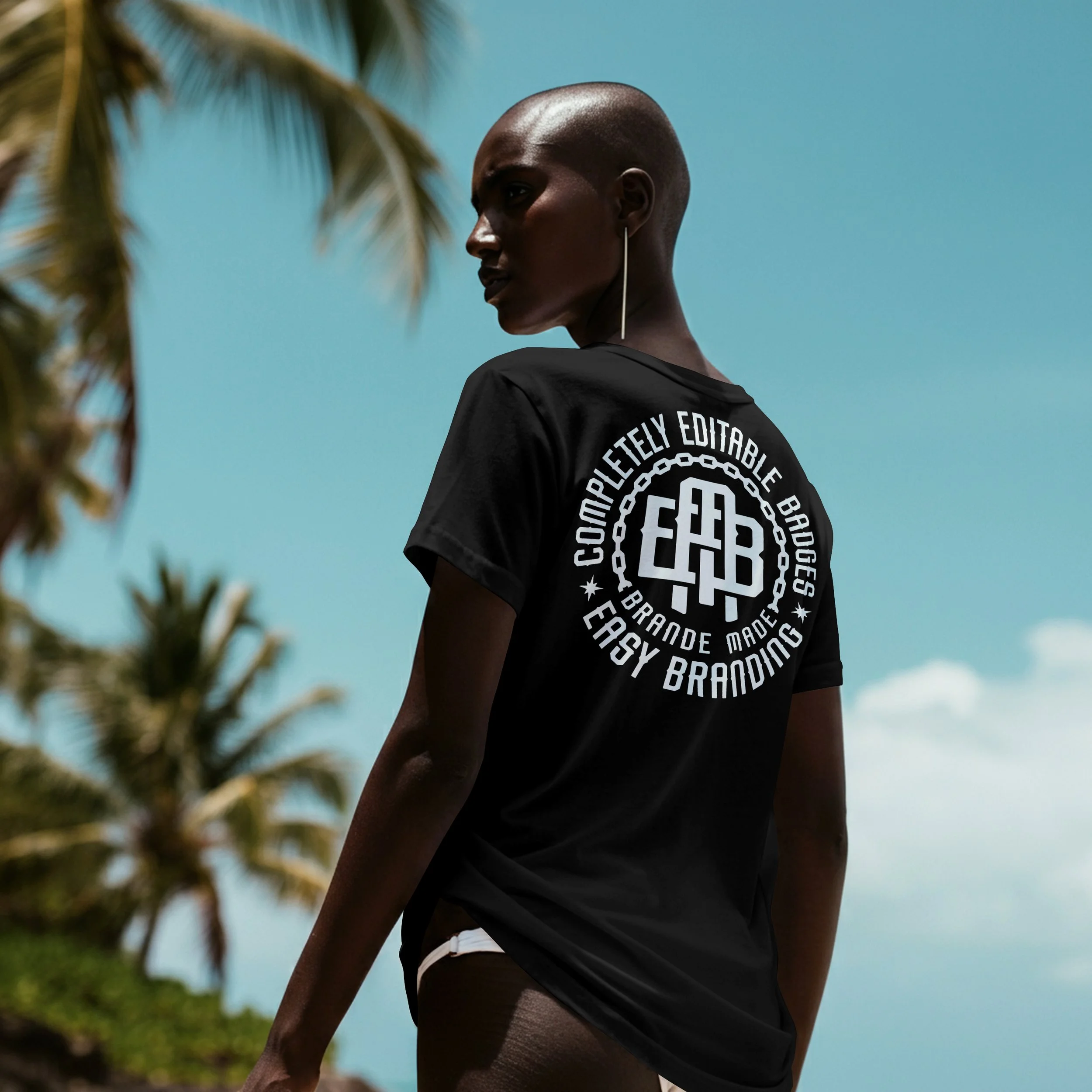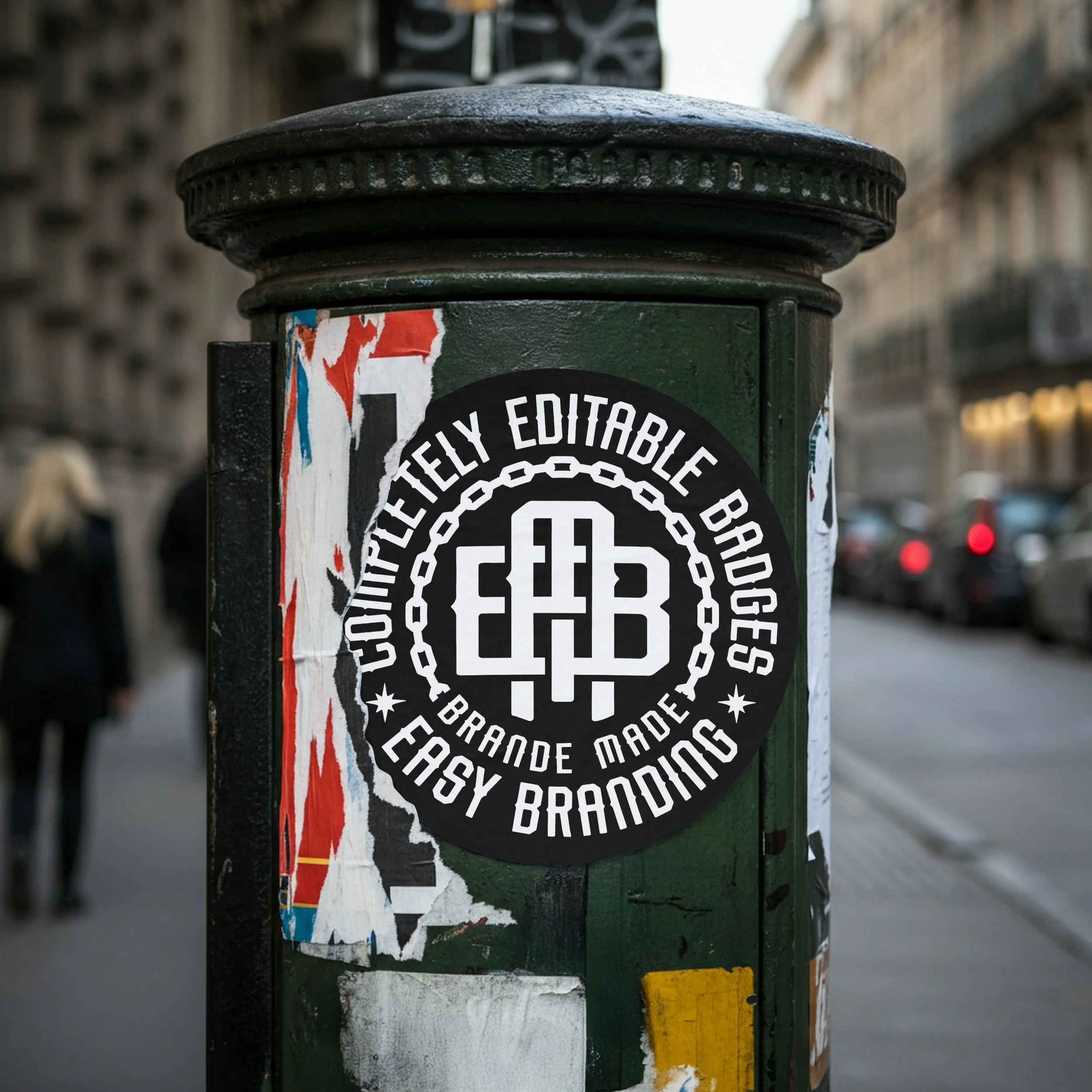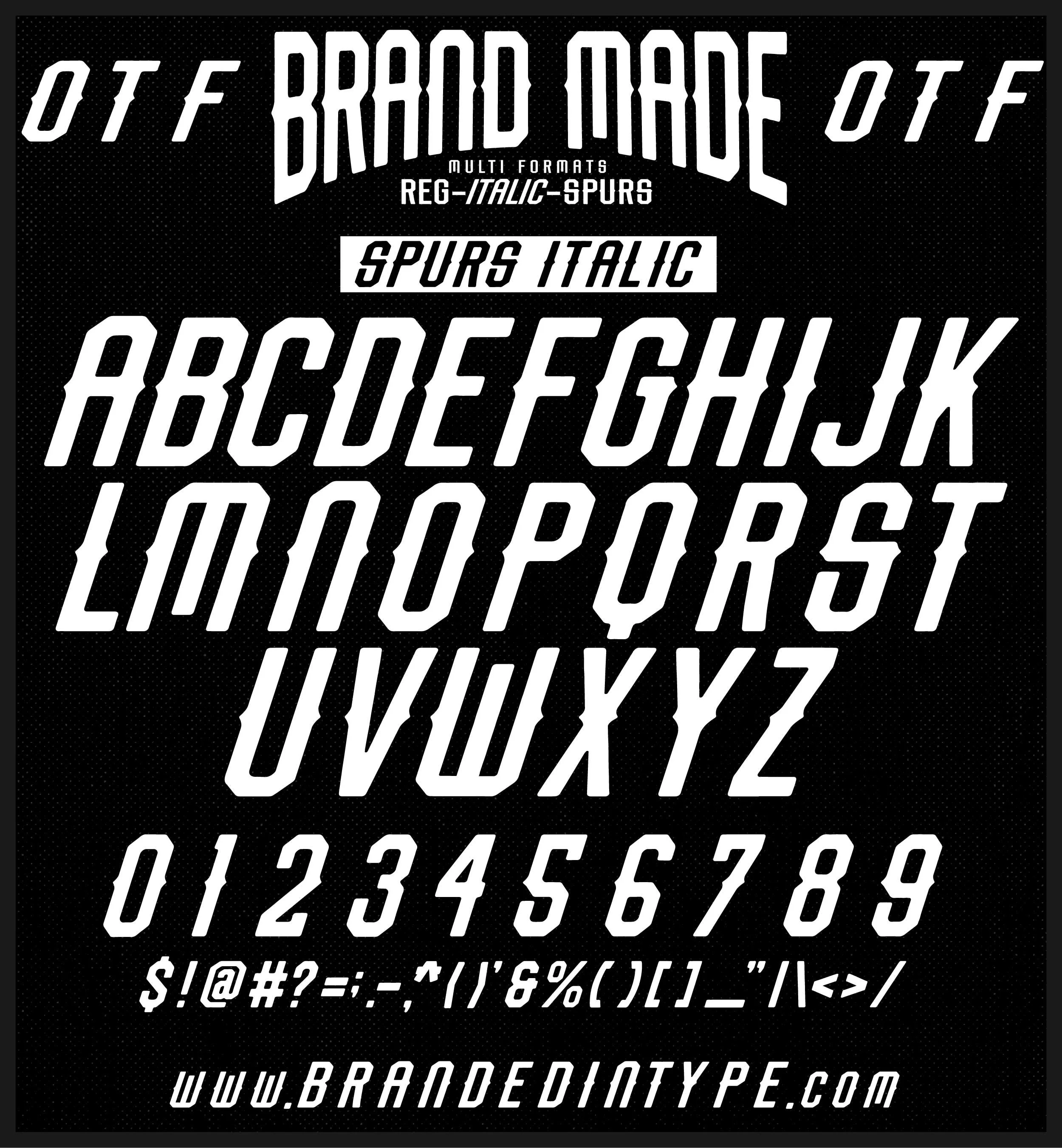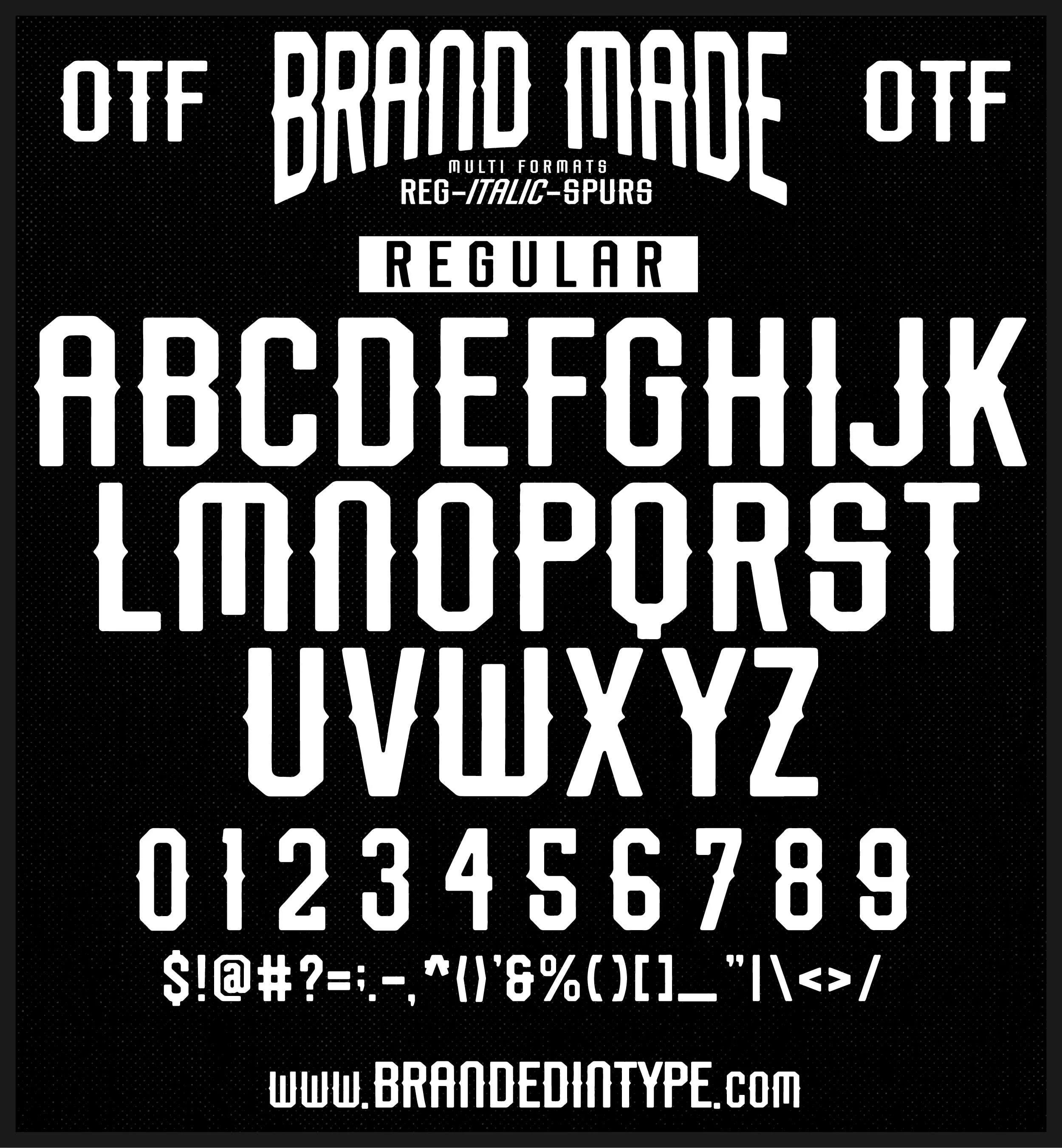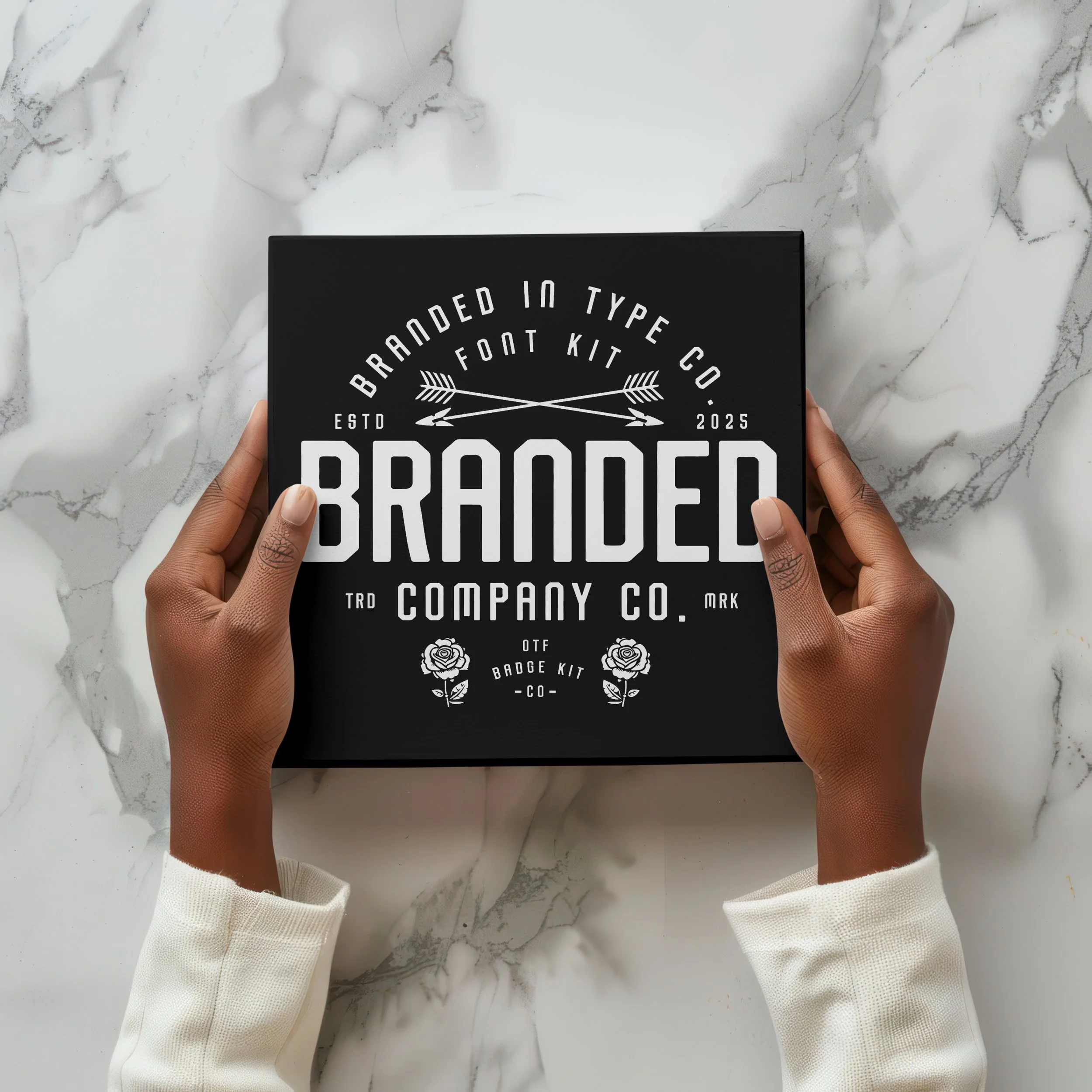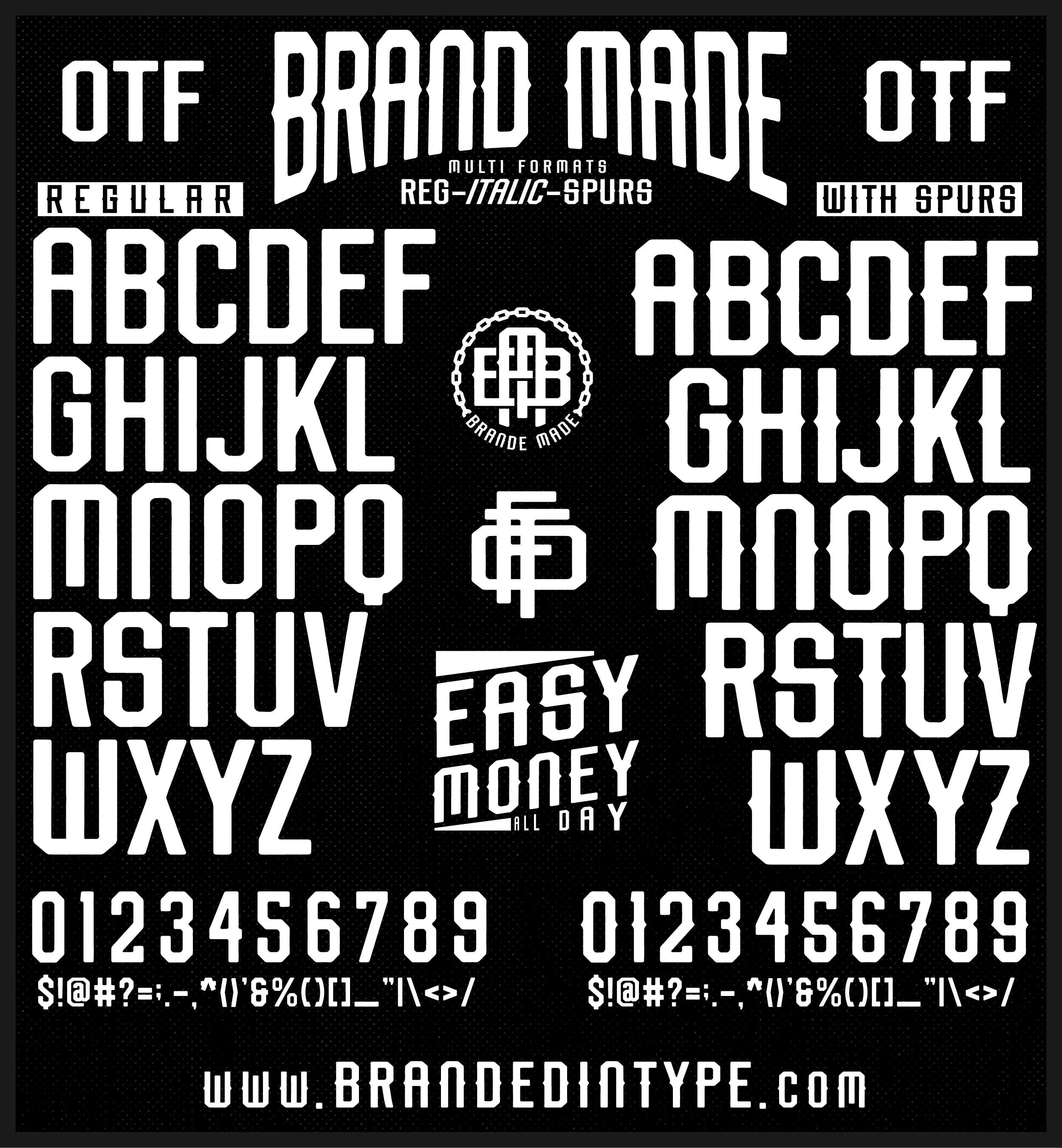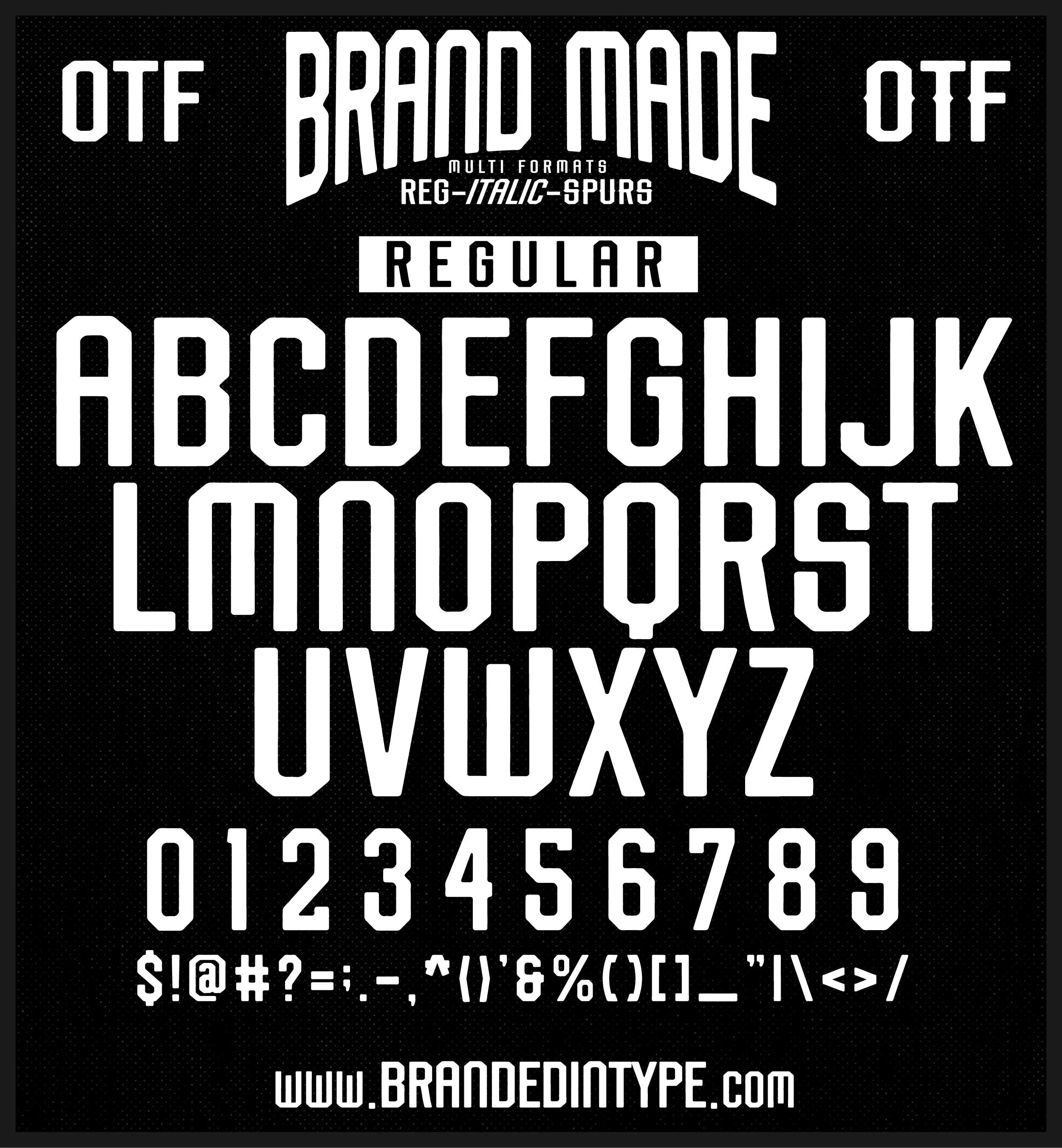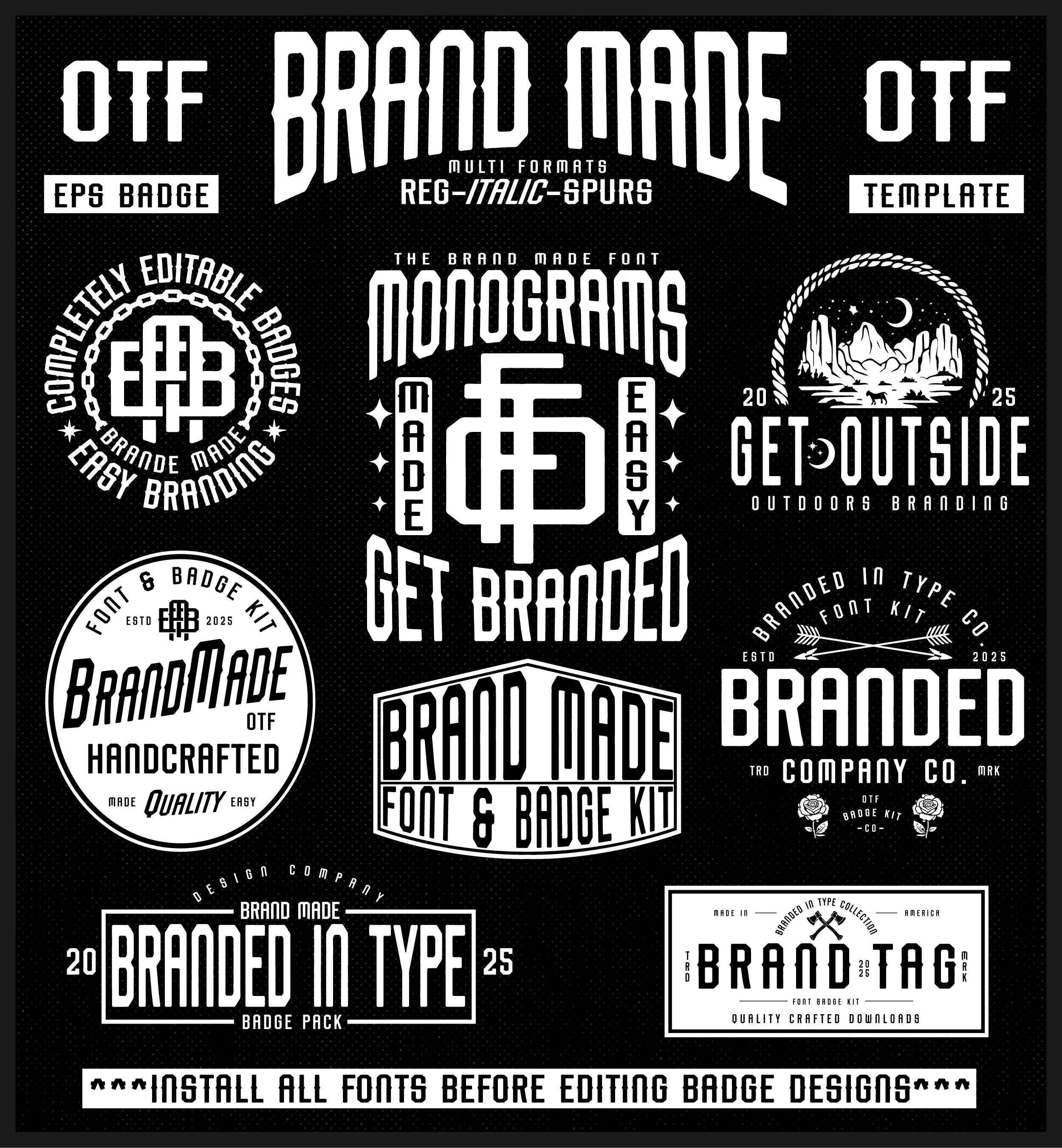
BRAND MADE FONT + BADGE KIT & VECTOR PACK
The Brand Made Font + Badge Kit is another one of our font packs that fit perfectly any designers font catalogue. The font alone is worth the money. As it includes multiple formats in all letters, numbers, symbols, uppercase, lowercase, italic and even includes the versions with the sharp spurs on the side, providing a western or edgy looking appearance. Perfect for T-Shirt designs, badge designs, easy monograms and whatever else you can dream up.
This download is not just a font set. This is a Font & Badge Creation kit! Loaded up with premade, click and create badges with editable text, AND even includes a vector illustration pack for easy drag and drop usage for your badges, or whatever else you may find a use for them.
• Brand Made Font Set - Uppercase, lowercase, All symbols in Regular, Italic for the regular and spurs variations!
• 8 Fully editable Badge Designs. Just click on the type areas, and replace with your own text!
• 34 Vector Format Illustrations! For easy drag and drop usage in your badges or whatever you can dream up.